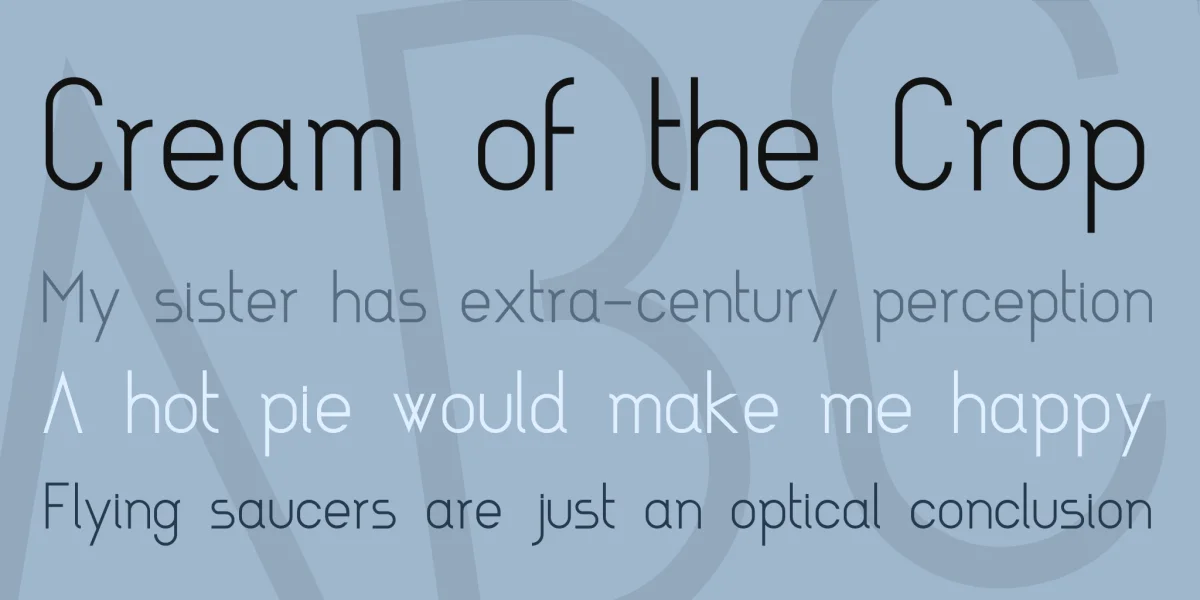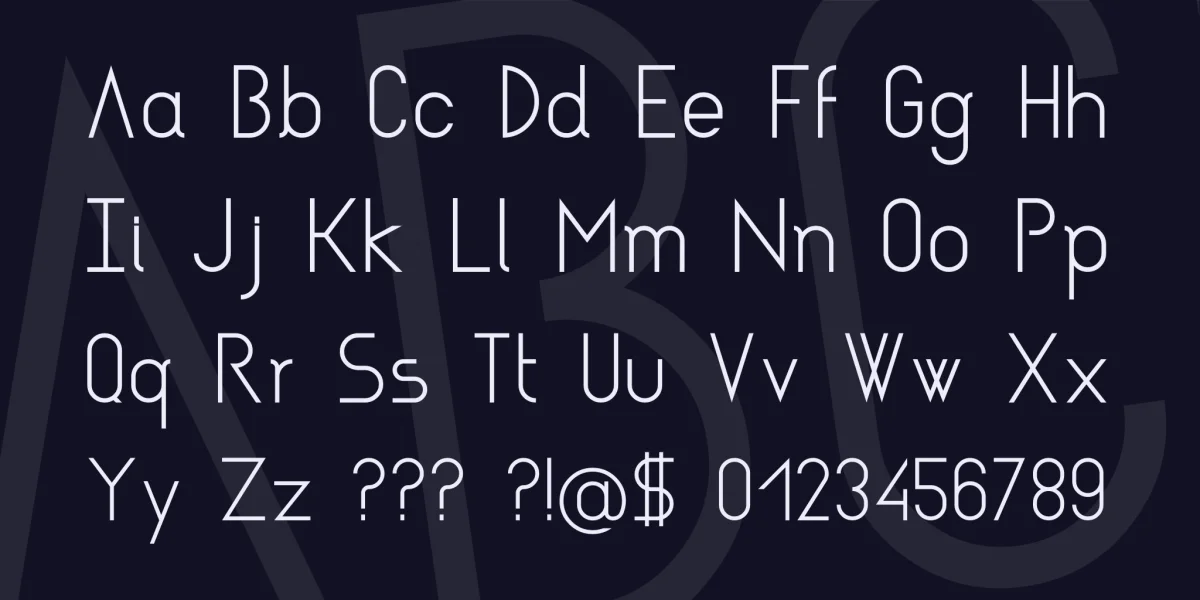
This is the third font I've created, inspired by sci-fi, created with geometric shapes. You can use it for personal and commercial works. I hope you'll enjoy it.